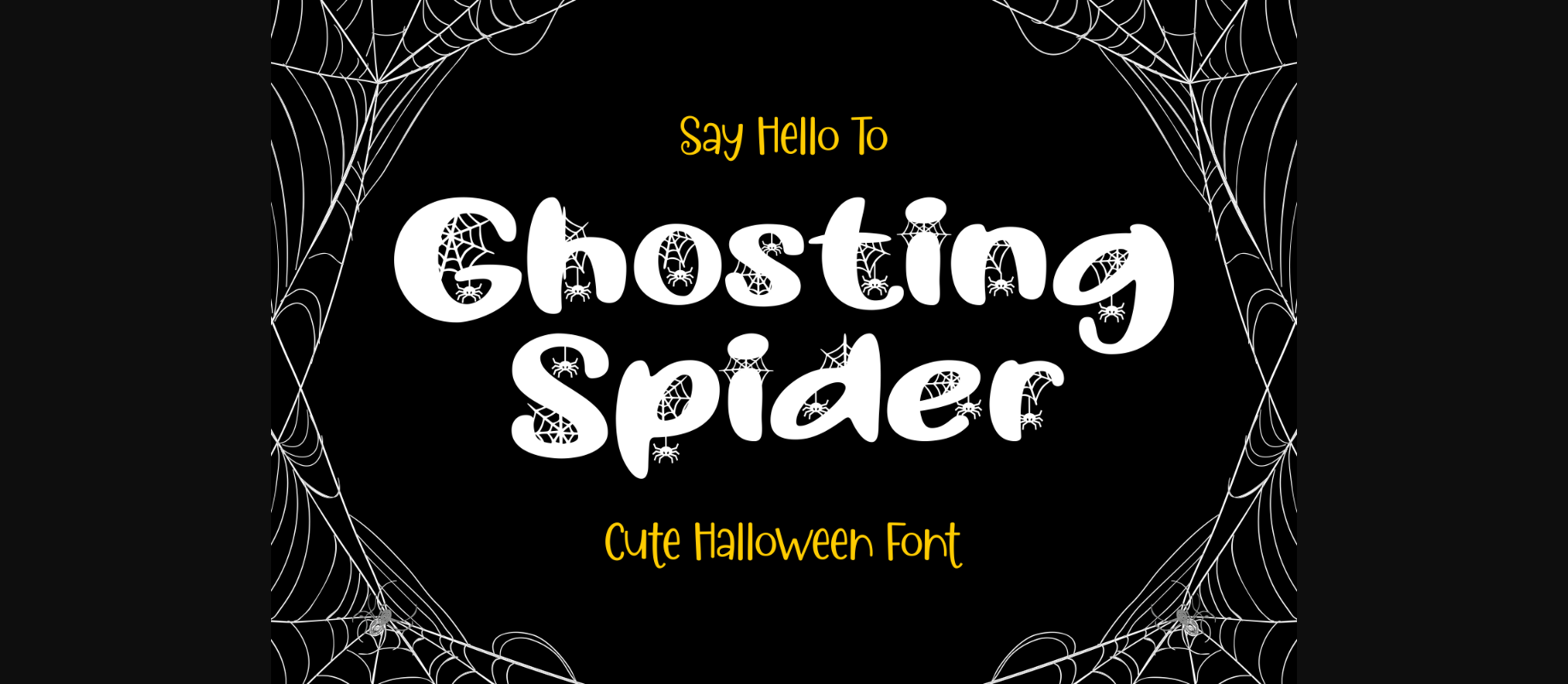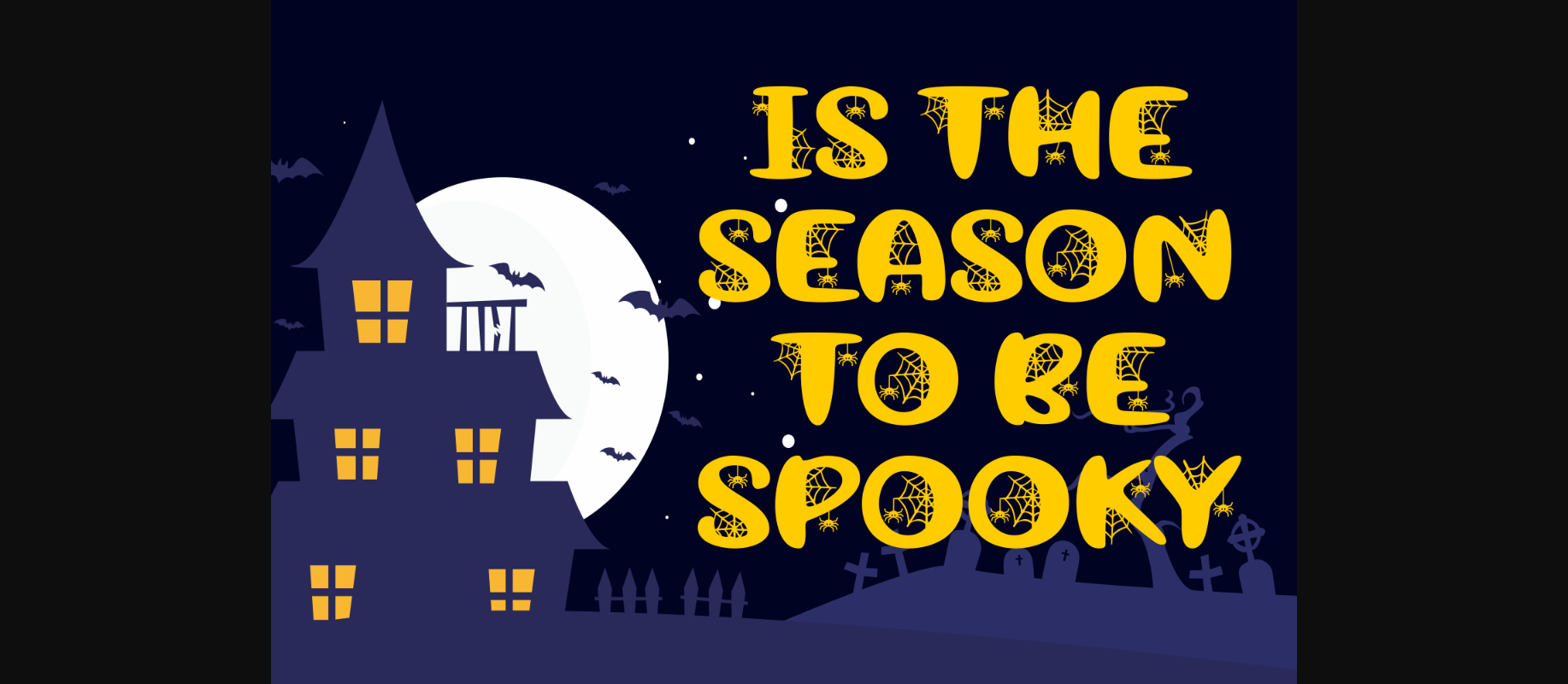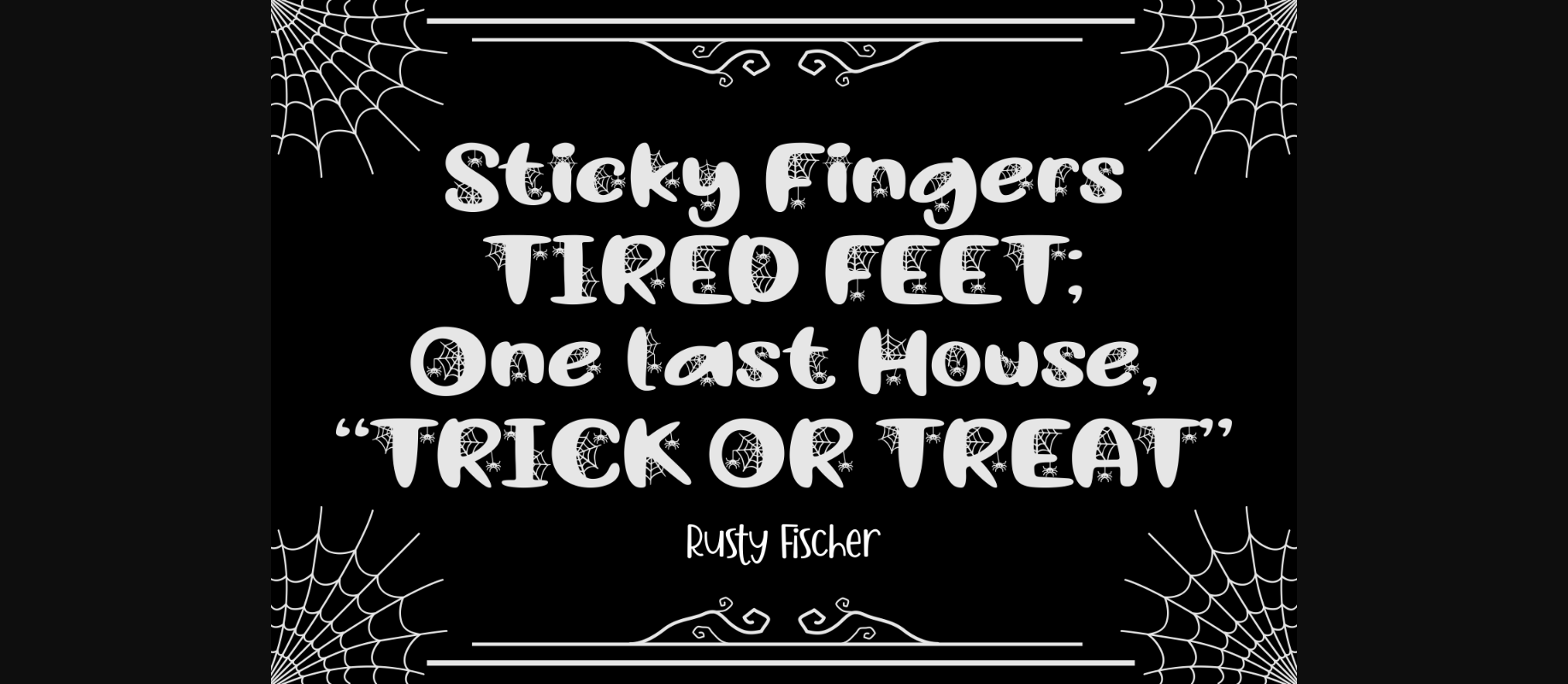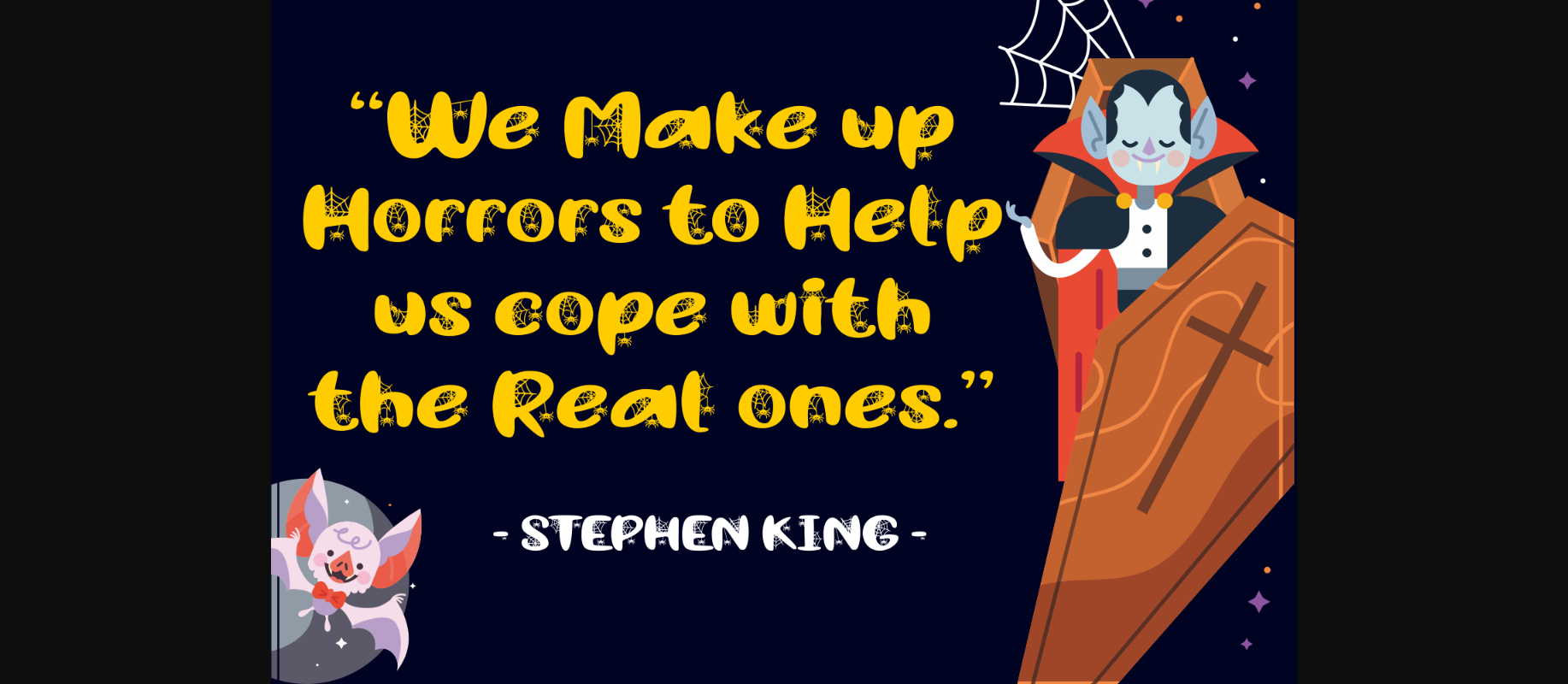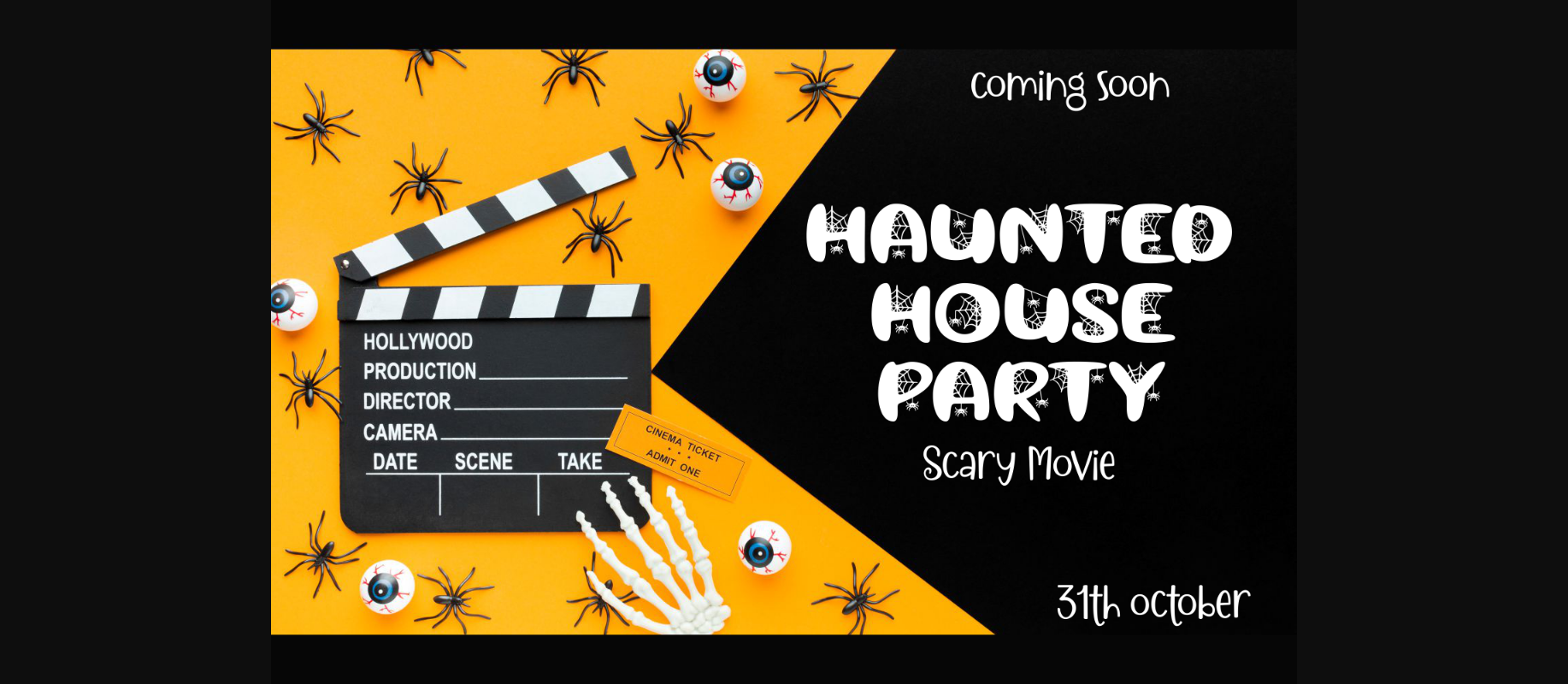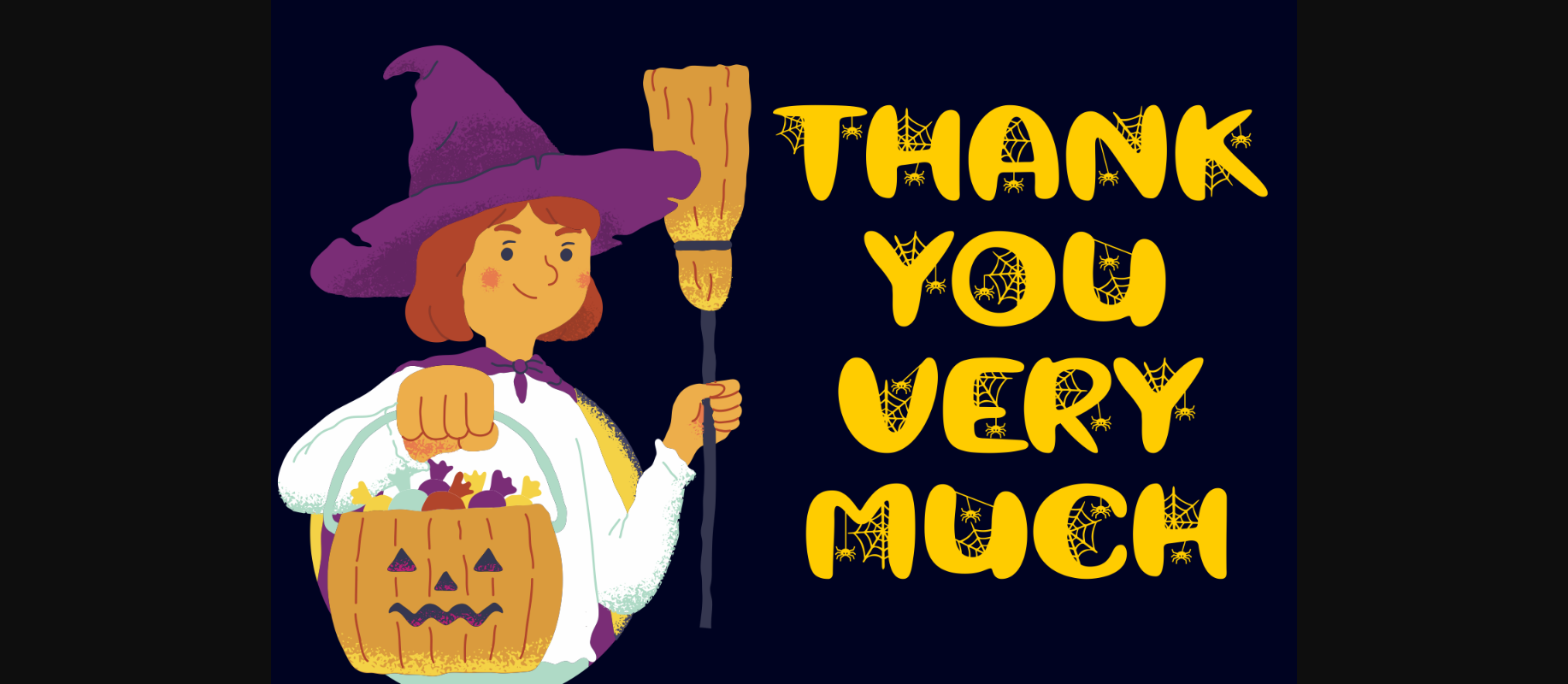
About Ghosting Spider Font
Ghosting Spider is a spooky and fun decorative font that’s perfectly suitable for Halloween! It will add a wonderful and spooky feel to stationery, games, movie titles, posters, and more!